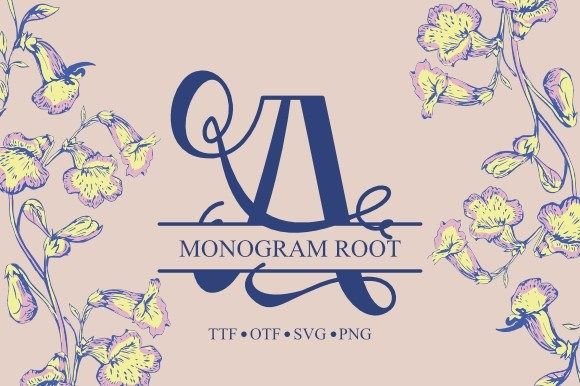
Dive into the world of Monogram Root Font, a display font family crafted by Monosimple, specifically designed to capture the essence of tween monograms. This font is a captivating blend of fancy and flouncy, bold and bouncy. Its intricate roots and curves present endless possibilities, allowing you to use them solo or mix and match to create unique and eye-catching designs.
With Monogram Root Font, your designs will exude a sense of joy and exuberance. Its playful nature lends itself perfectly to projects aimed at tweens, evoking a sense of wonder and excitement. Whether you're creating personalized stationery, designing party invitations, or crafting social media graphics, Monogram Root Font will add a touch of whimsy and charm to your work.
This font family is incredibly versatile, featuring a range of weights and styles to suit a variety of design needs. From delicate hairlines to bold and impactful weights, you'll find the perfect option to bring your creative vision to life. Monogram Root Font is also highly legible, ensuring that your message is conveyed clearly and effectively.
Unleash your creativity and let Monogram Root Font elevate your designs to new heights. Its unique charm and versatility make it the ideal choice for designers and crafters alike. Embrace the playful spirit of Monogram Root Font and watch your creations come to life with vibrancy and flair.